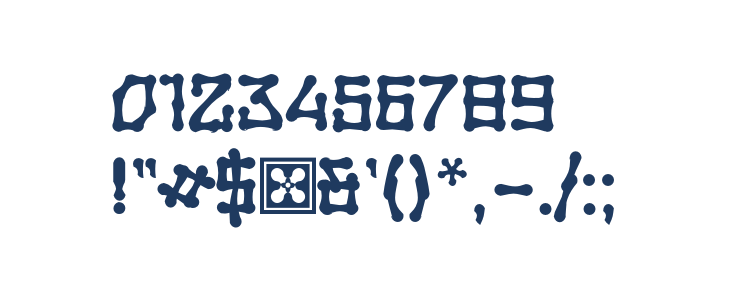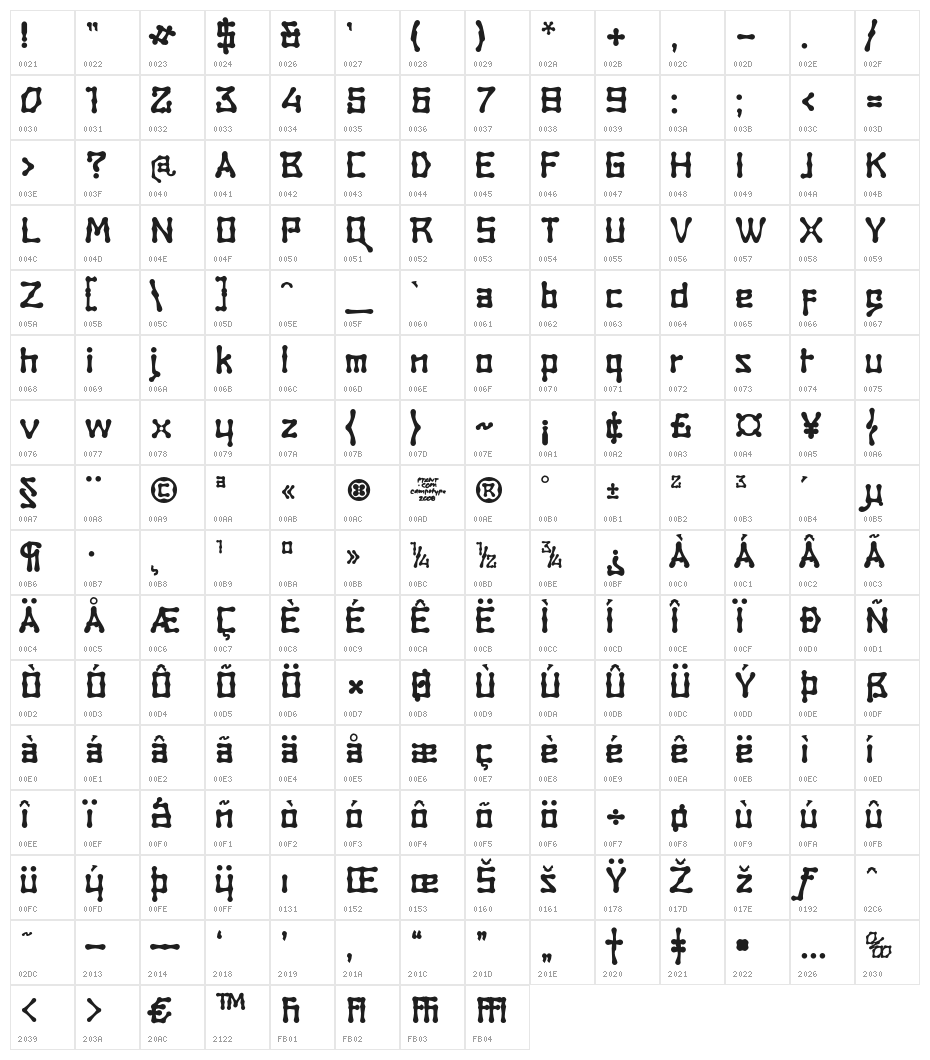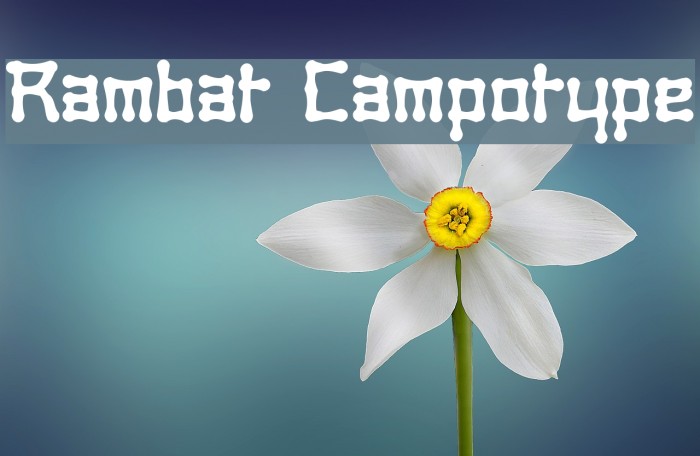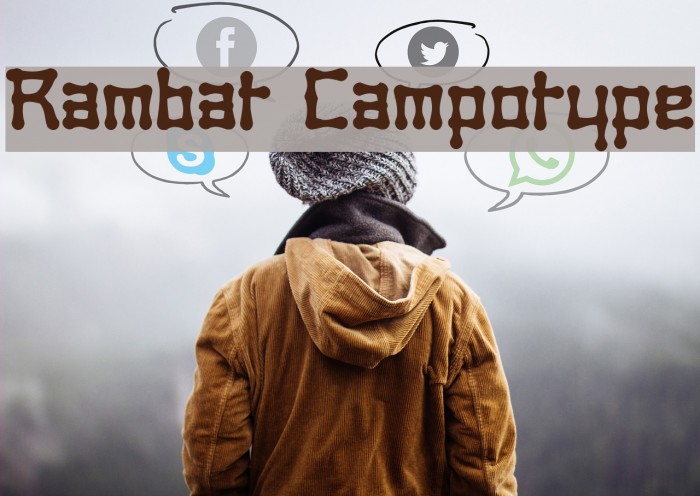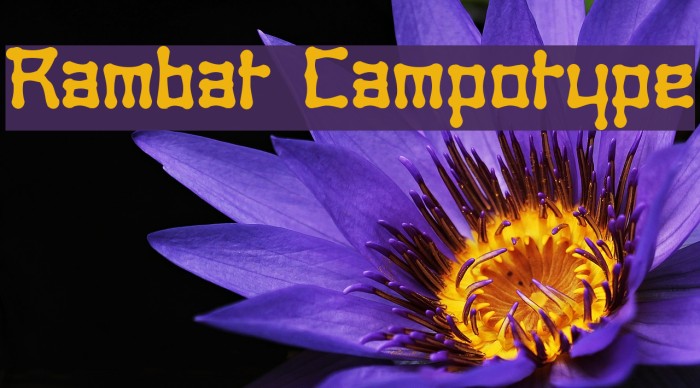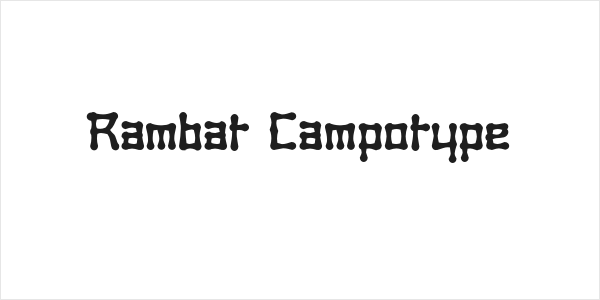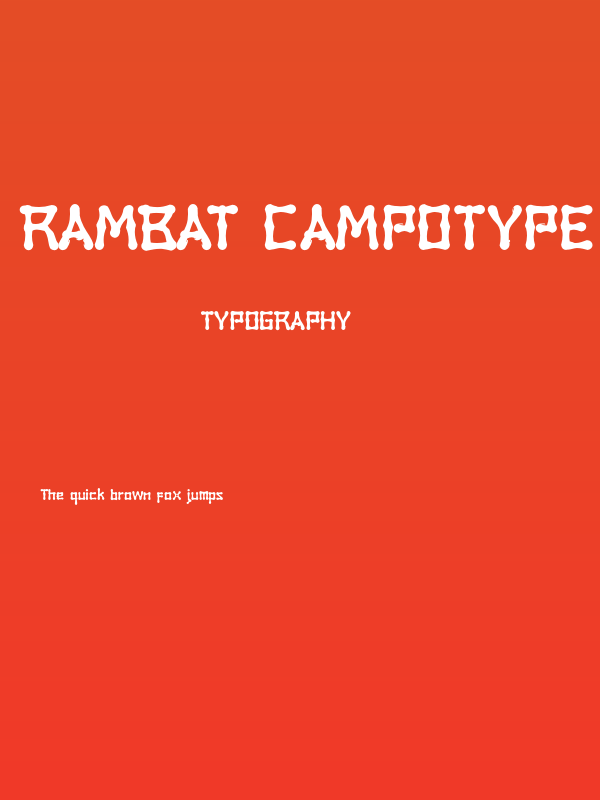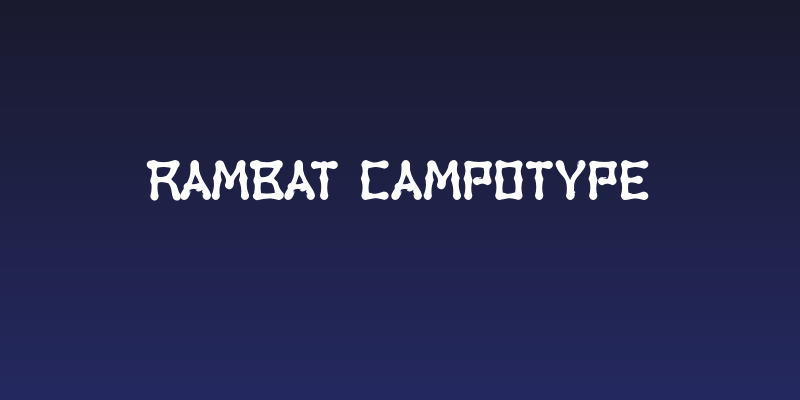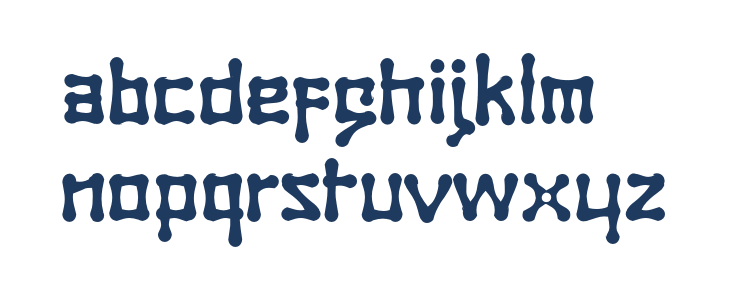
Rambat Campotype Font
Rambat Campotype Description
This font features a bold and rugged design, characterized by its thick, uneven strokes and organic shapes. The letters have a hand-drawn appearance, with irregular edges and a slightly distressed look, giving it a unique and artistic feel. The uppercase and lowercase letters maintain a consistent style, with a playful yet strong presence. Numbers and special characters follow the same design principles, ensuring a cohesive look across all elements. This font is ideal for projects that require a touch of creativity and individuality.
| Use Case | Logos, Posters, Creative projects |
| Proposed Projects | Perfect for artistic projects, posters, branding, and any design needing a creative and distinctive touch. |